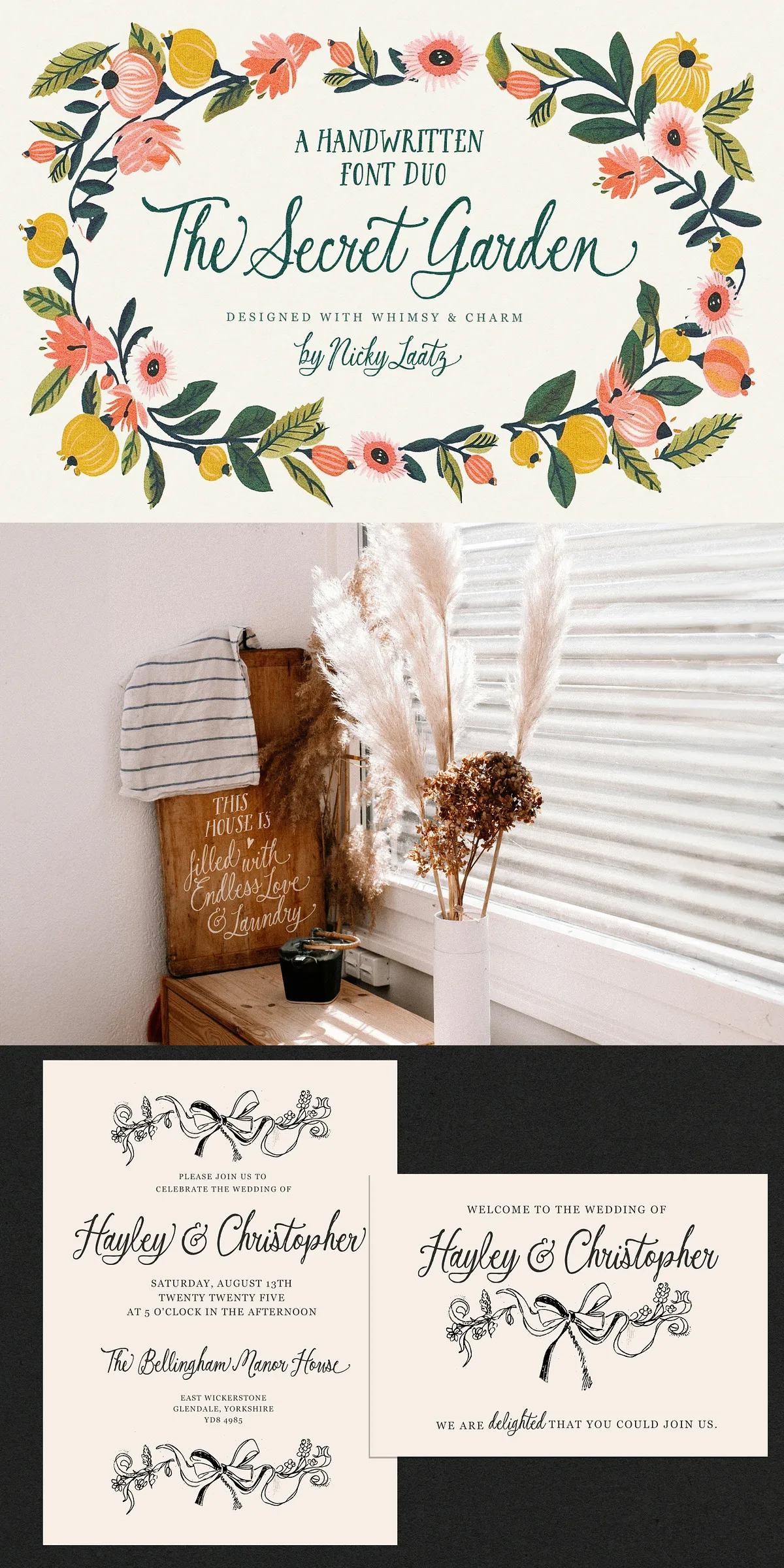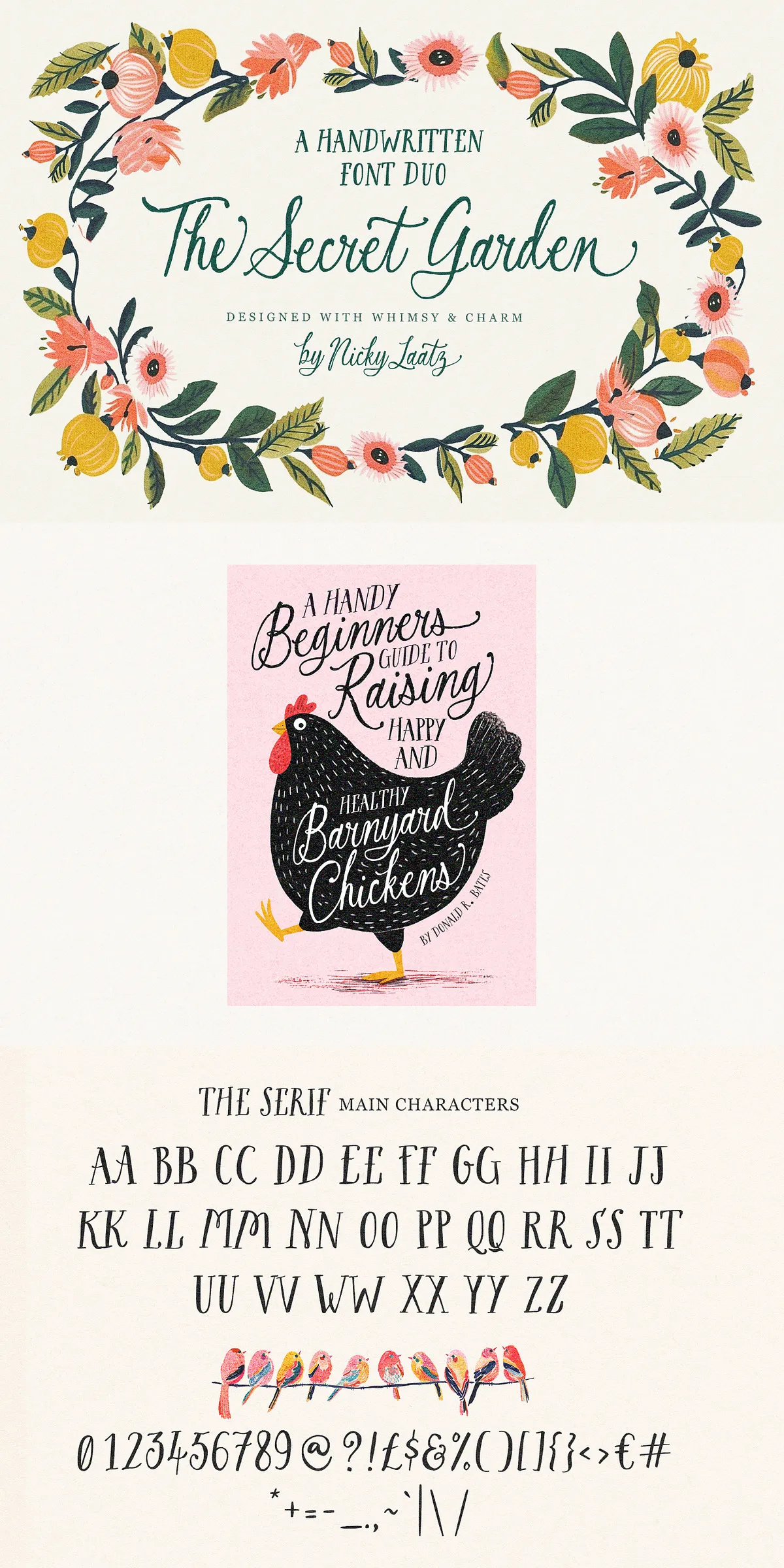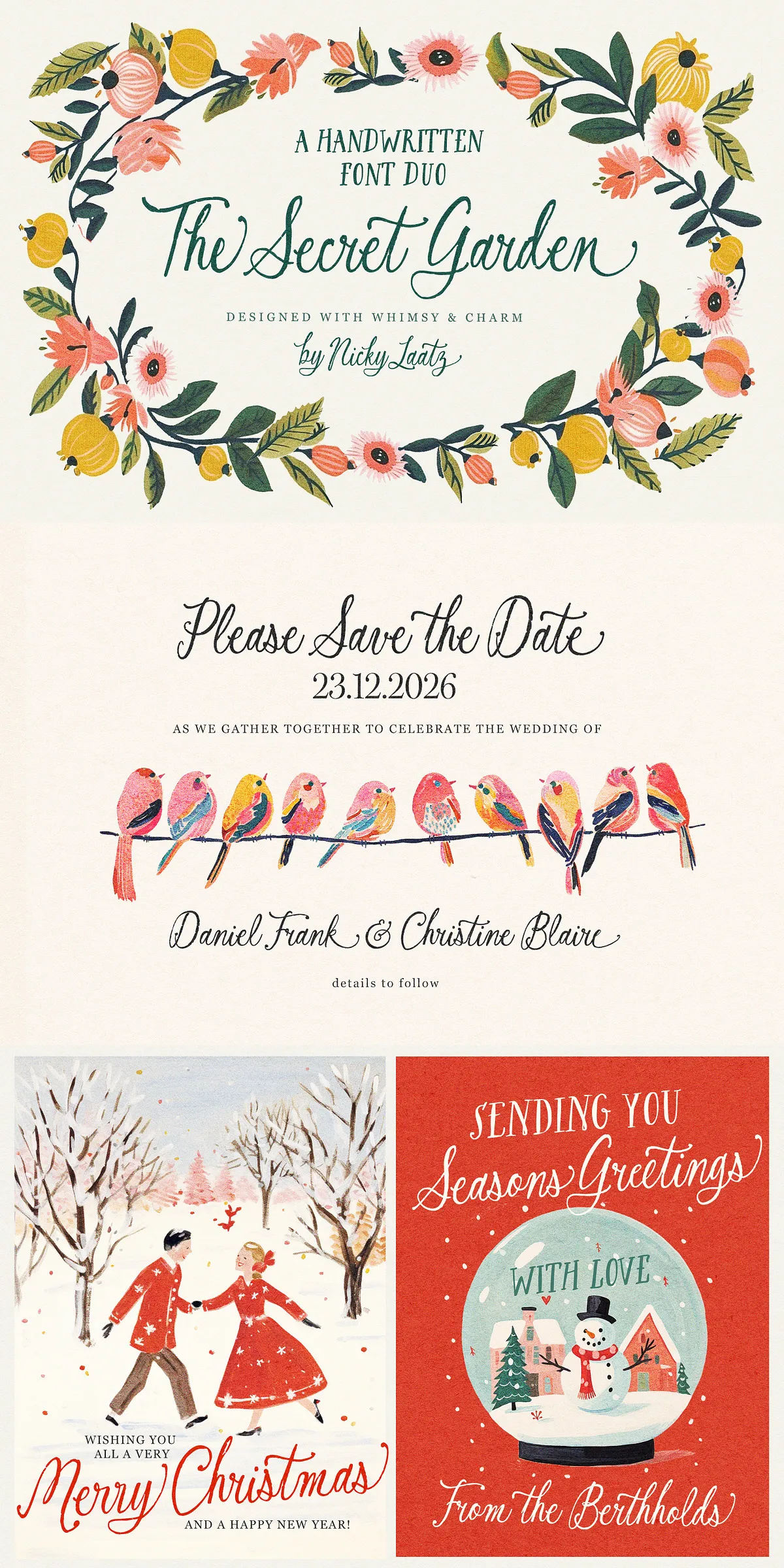
Step into a world where imagination blooms and creativity takes root with the Secret Garden Font Duo — a delightfully playful, hand-lettered script paired with a gracefully whimsical serif. This dynamic duo isn’t just a font collection; it’s a creative invitation to bring magic, personality, and visual storytelling to your projects. Whether you’re crafting handmade greeting cards, designing rustic labels, creating enchanting invitations, or exploring bold typography art, this font pair brings a unique blend of old-world elegance and modern whimsy to every character.
Handcrafted with Heart, Engineered for Impact
Every stroke in the Secret Garden Font Duo was thoughtfully designed to mimic the natural fluidity of hand lettering. The **Script font** features a rough-edged, organic appearance that captures the spirit of a quill dipped in ink and written with joy. With a generous selection of **90 letter alternates**, **swashed end letters**, and **double-letter ligatures**, each word can be customized to feel unique, authentic, and alive. This level of detail allows you to breathe life into your text, ensuring no two designs feel the same.
Two Variants for Every Visual Mood
To give you even greater creative control, the Script font includes two optional variants — subtly different in height and slant — so you can match the tone and rhythm of your project perfectly. One variation offers a taller, more elegant posture; the other leans slightly more for a playful, dynamic feel. This flexibility ensures your font adapts seamlessly to different layouts and emotional tones.
A Serif That Complements, Never Competes
Complementing the script is the **whimsical Serif font**, designed to stand beside it with equal charm. The serif holds its own with a hand-drawn warmth while maintaining clarity. For better readability at smaller sizes, a **heavier version of the serif** is included — one with reduced contrast, making it crisper and more legible without sacrificing its rustic soul. Use it for body text, headlines, or as a counterbalance to the script’s flourish.
Ideal for Creative Projects That Tell a Story
From rustic food packaging to dreamy wedding invites, from illustrated children’s books to vintage-style posters, the Secret Garden Font Duo thrives across categories:
- Greeting Cards & Invitations – Add a personal, handcrafted touch to celebrate life’s special moments.
- Rustic Labels & Packaging – Perfect for craft beer, candles, organic skincare, and artisanal goods.
- Illuminated Typography Art – Bring illustrations to life with expressive, flowing text.
- Blog Headers & Social Media Graphics – Stand out with bold, unique visual identity.
- Book Covers & Stationery Sets – Convey warmth, nostalgia, and artistic elegance.